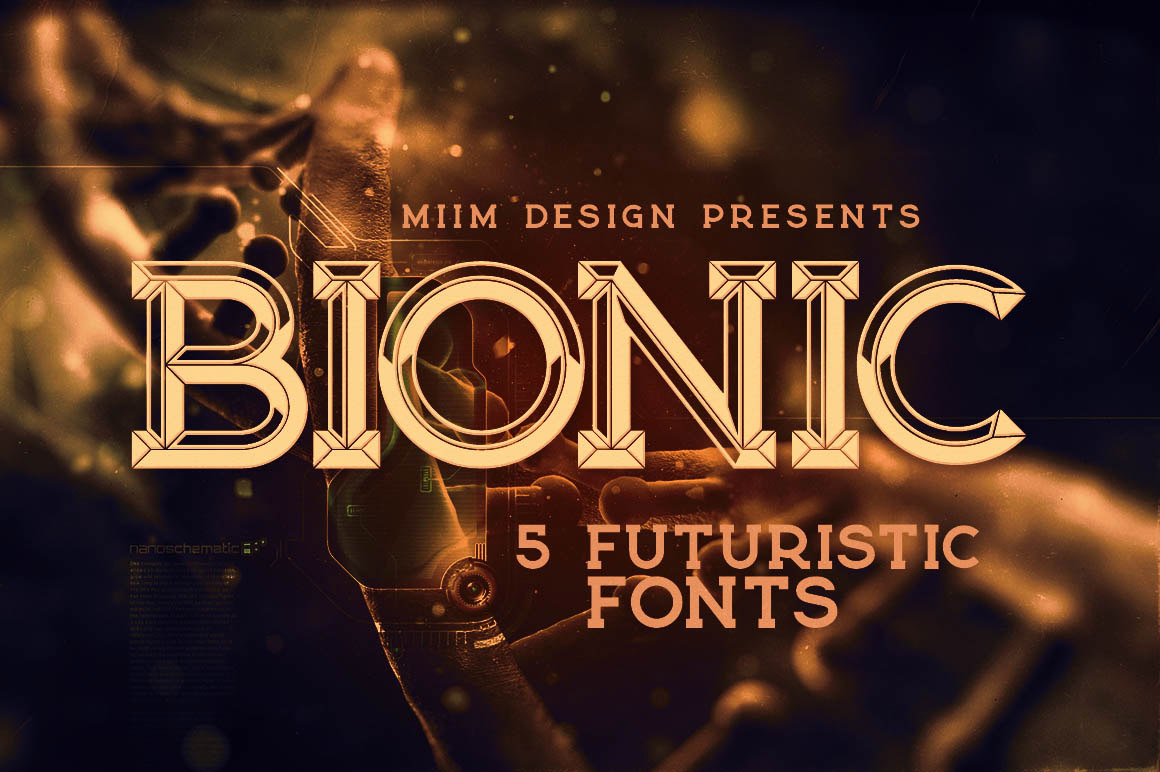
Bionic - Modern Font
Bionic Modern Font is perfect for futuristic technology branding, cybernetics company logos, advanced robotics marketing, artificial intelligence interfaces, biomedical device packaging, sci-fi entertainment graphics, innovation lab signage, and cutting-edge research communications.
What makes Bionic Modern Font exciting is its cybernetic precision that embodies the seamless fusion of human intelligence and technological enhancement with futuristic sophistication and digital evolution. The font features engineered letterforms with biomechanical angles and advanced character that evoke neural networks, prosthetic limbs, and the revolutionary integration of biology and technology in next-generation innovation. Its distinctive futuristic styling and technological appeal communicate advancement, enhancement, and evolutionary progress, making every message feel powered by artificial intelligence and touched by the transformative potential of human-machine integration and cybernetic evolution.
The Bionic Modern Font family includes regular weight with uppercase and lowercase letters, numerals, punctuation marks, and comprehensive technical symbols. Premium versions often feature multiple weights and cybernetic alternates that enhance the futuristic, technological aesthetic perfect for advanced technology and research applications.
This advanced technological typeface brings instant innovation and scientific credibility to any futuristic project. Bionic Modern Font Free Download delivers exceptional results for technology companies and research organizations seeking to communicate cybernetic advancement, technological enhancement, and futuristic innovation to scientific audiences and technology enthusiasts.
The cybernetic character of Bionic Modern Font makes it particularly valuable for biomedical companies, robotics manufacturers, and artificial intelligence research institutions. Its excellent readability ensures technical specifications and research communications remain clear while maintaining the distinctive futuristic aesthetic that appeals to scientists and engineers working on human enhancement and technological integration.
Advanced technology marketers appreciate how Bionic Modern Font effortlessly conveys scientific innovation and cybernetic expertise. The font's engineered proportions and technological details create authoritative research materials that establish trust with audiences who value technological advancement, scientific progress, and the revolutionary potential of human-machine integration and cybernetic enhancement.
The versatile advancement of this typeface extends to medical device companies, space technology, and transhumanist organizations where cybernetic authenticity enhances scientific credibility and futuristic appeal. Bionic Modern Font Free Download provides creative professionals with an essential tool for developing memorable, future-driven designs that resonate with audiences who embrace technological enhancement, cybernetic innovation, and the transformative power of bionic technology in tomorrow's scientific landscape.